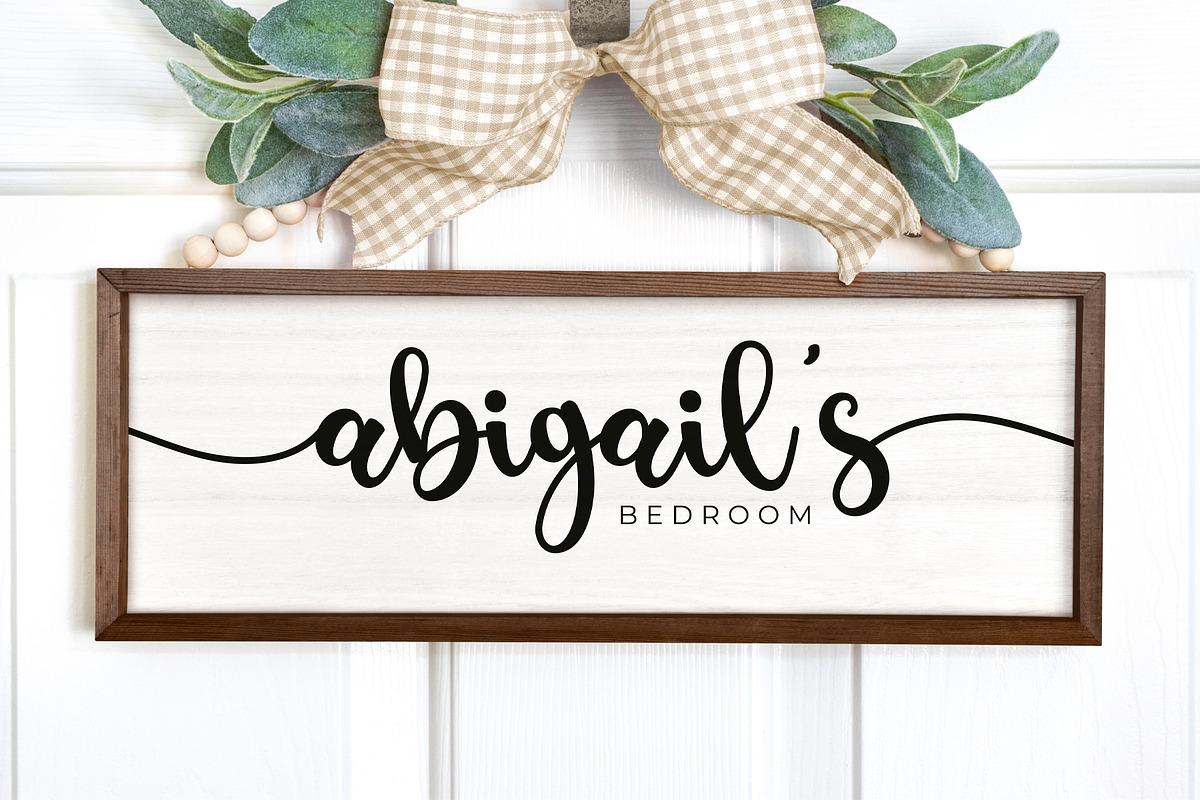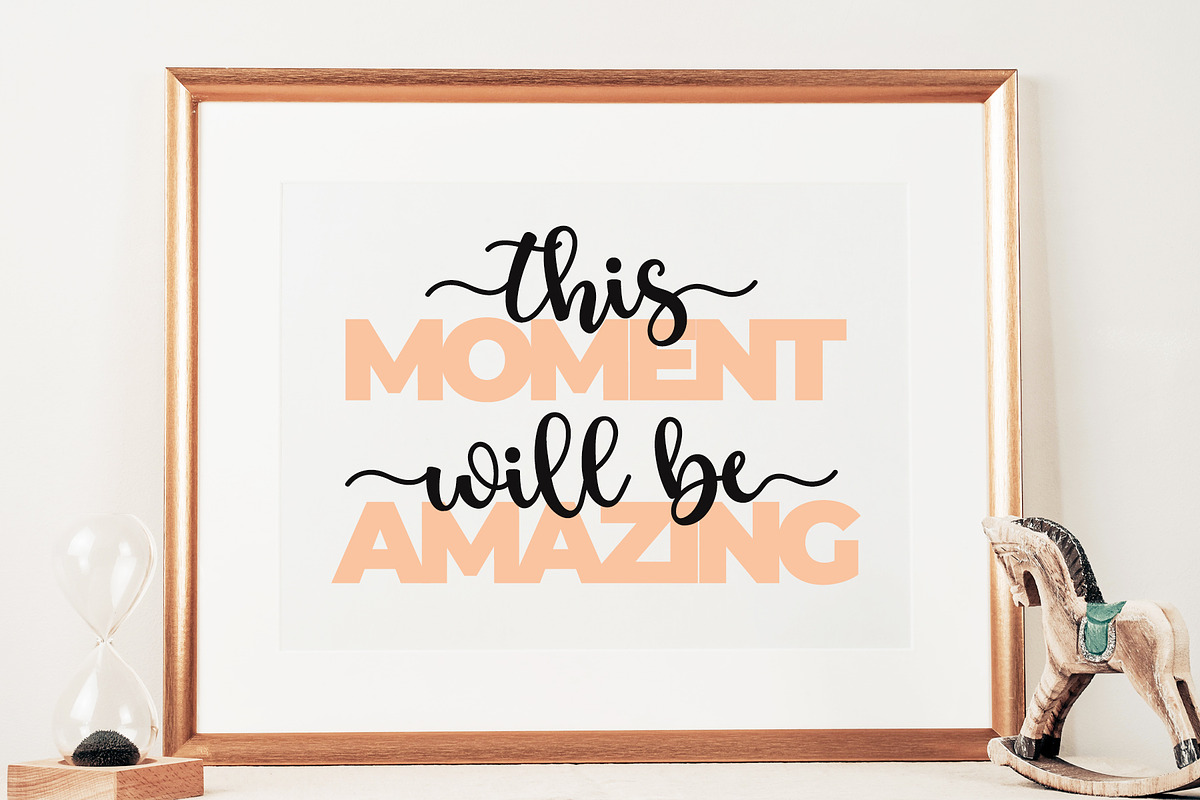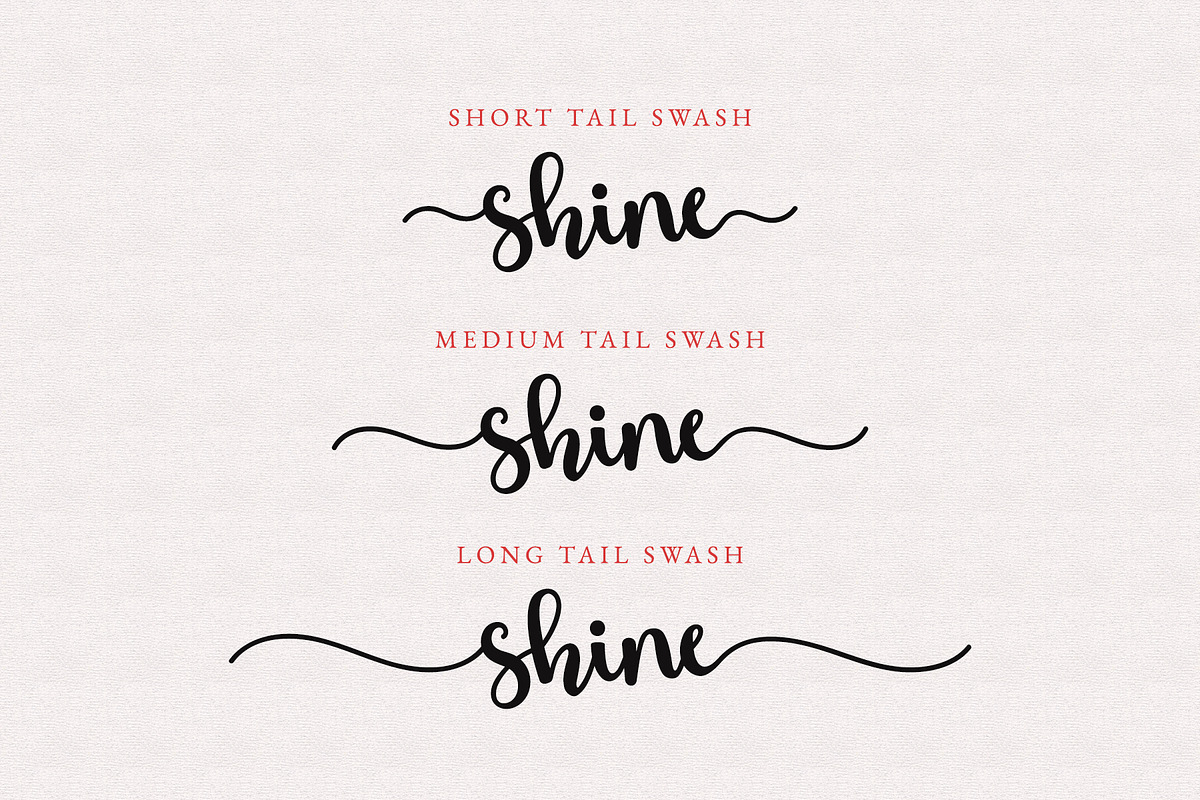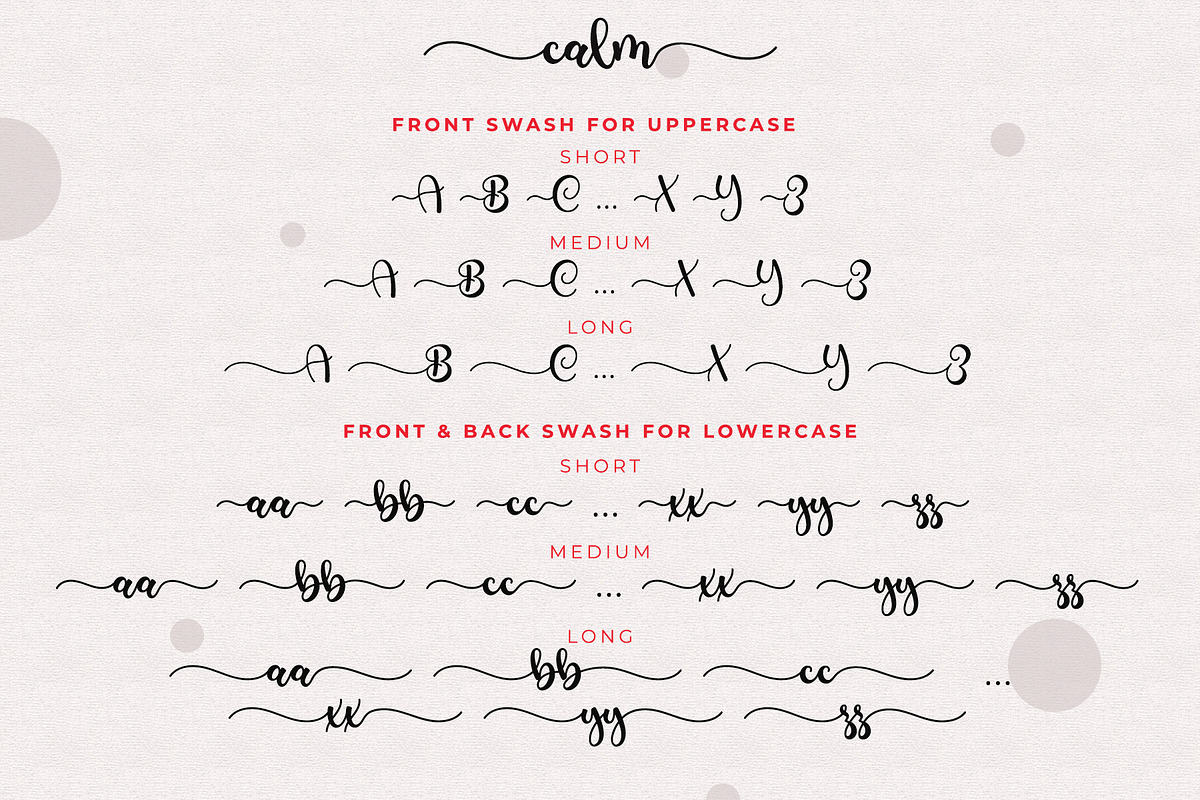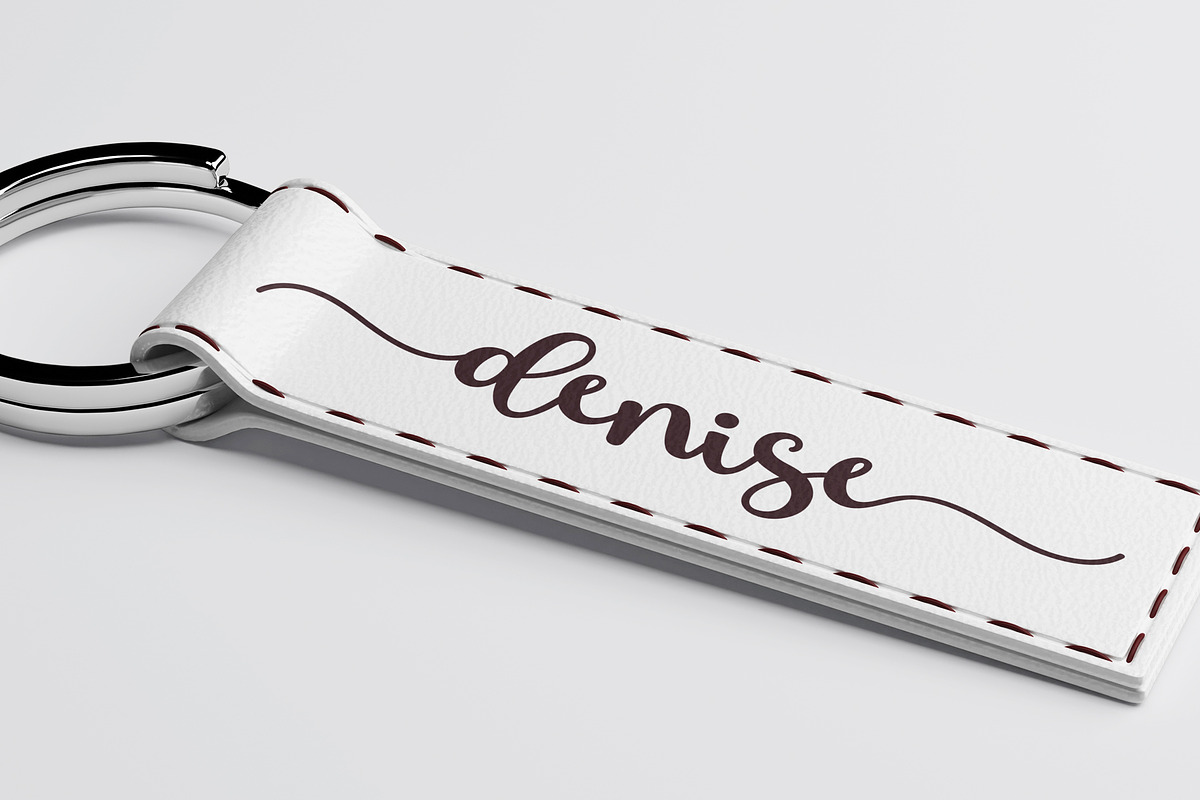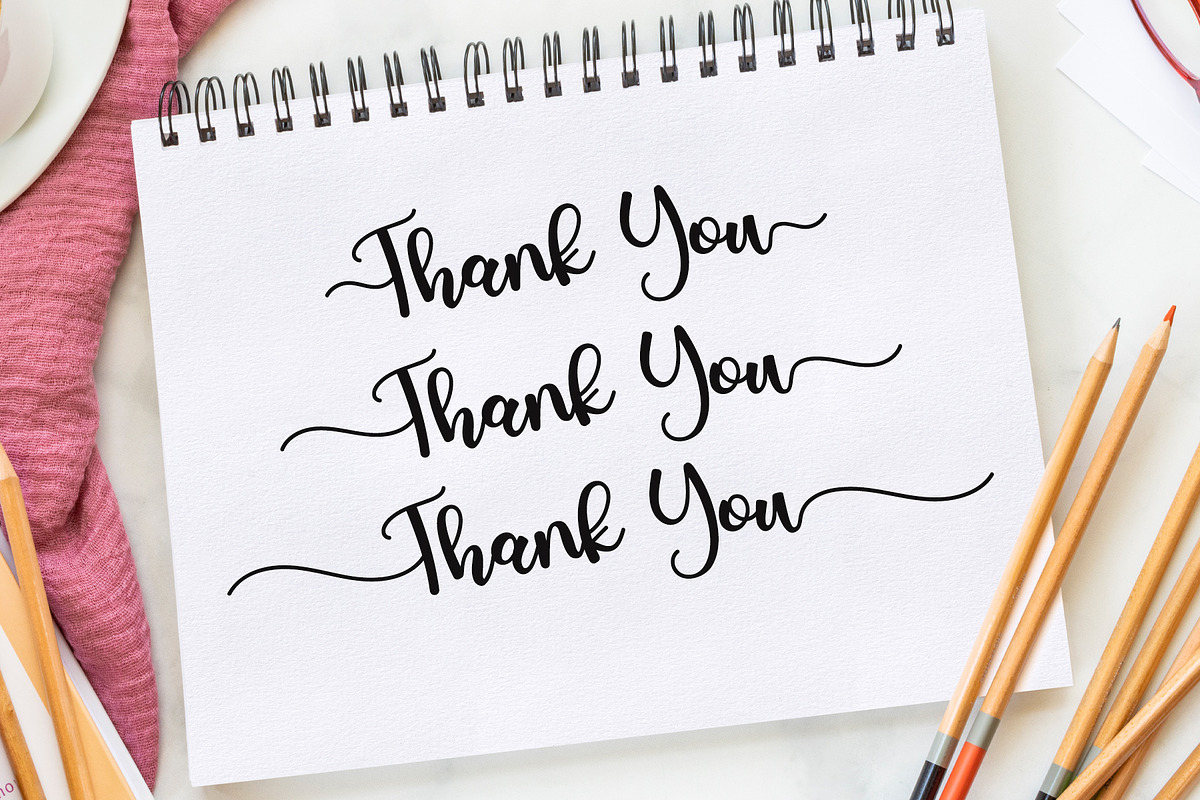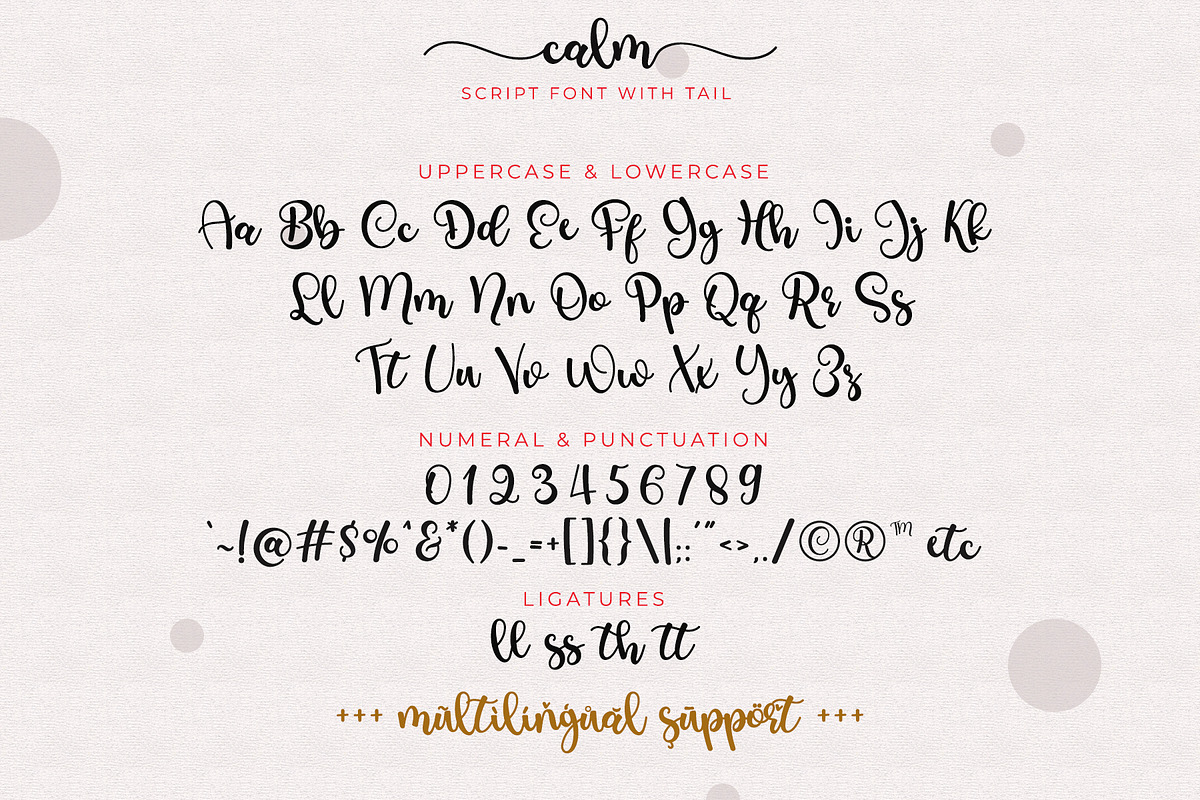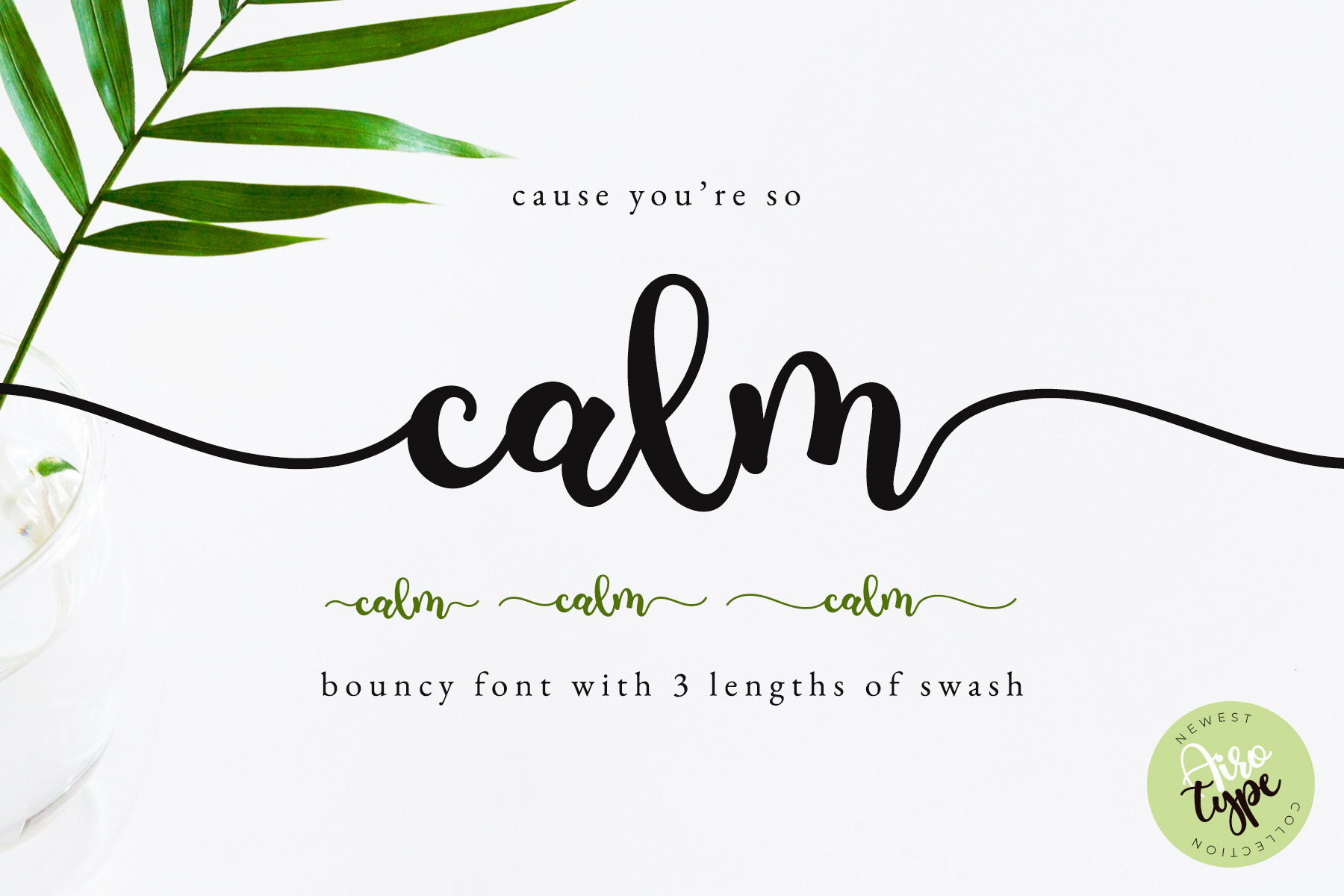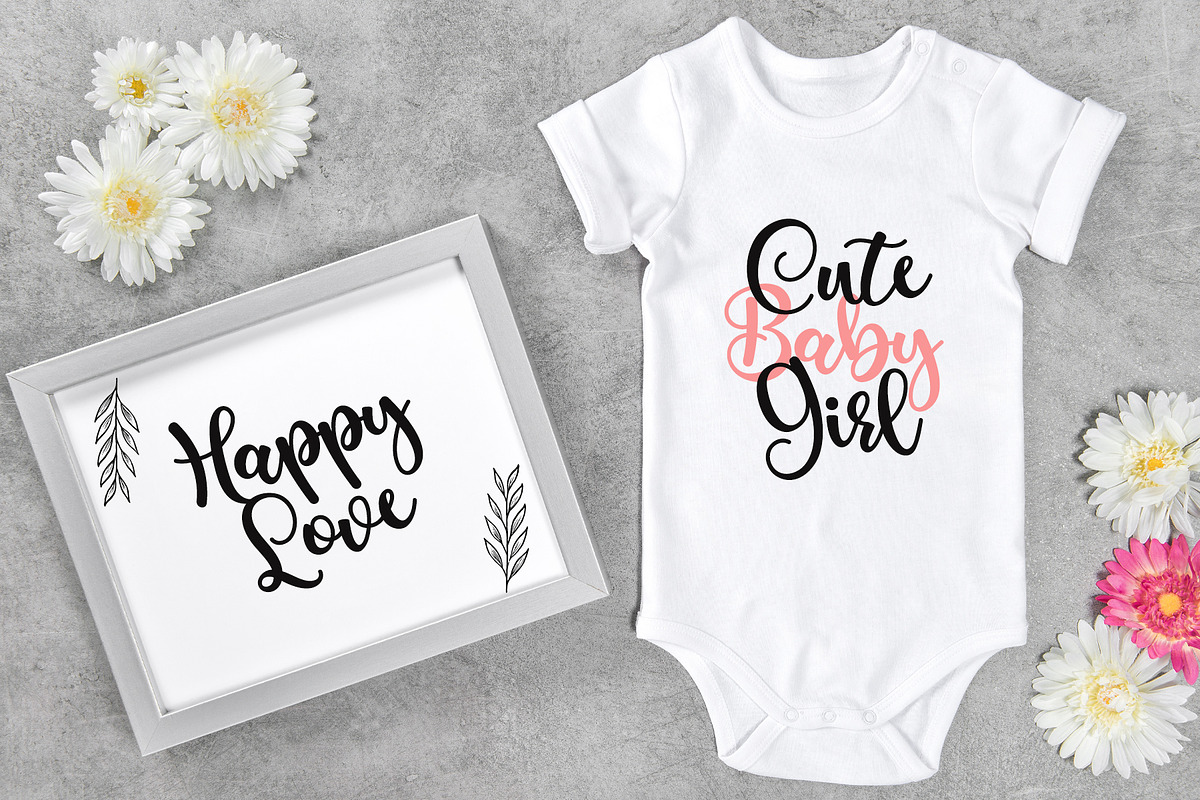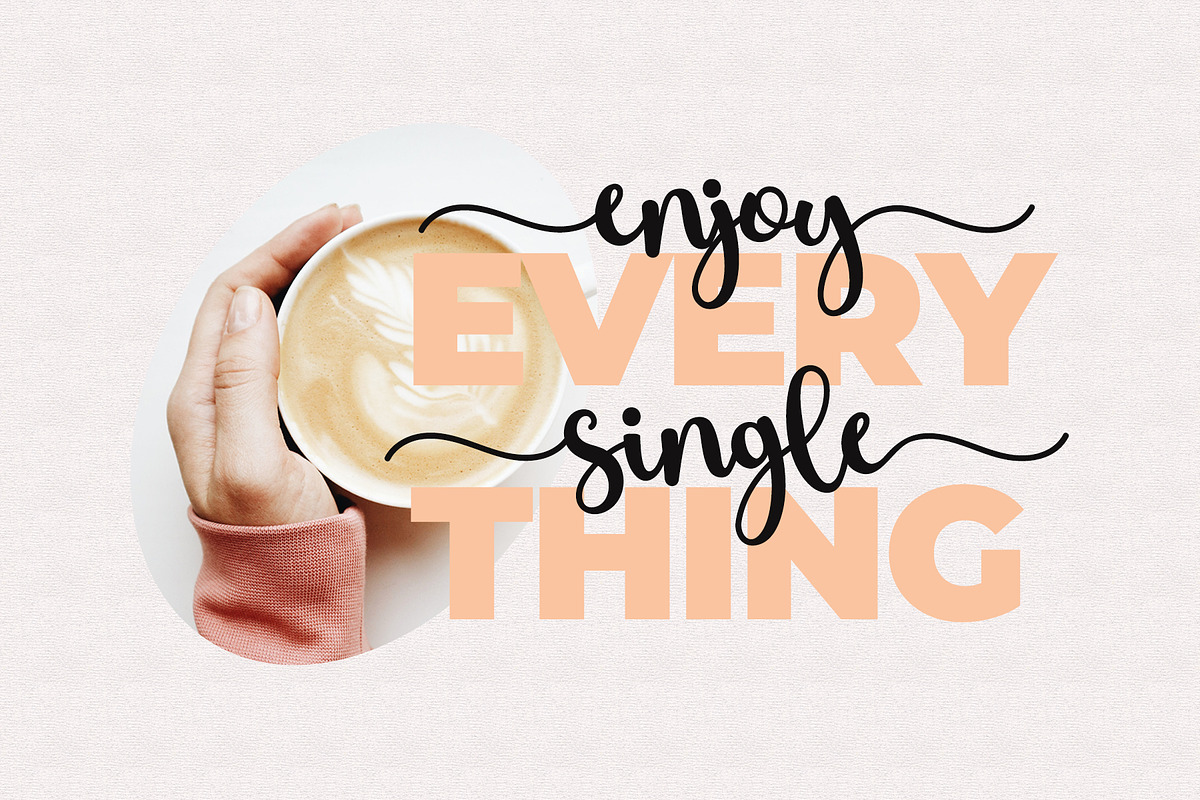
Calm Script - Long Tail Swash Font
Calm script is bouncy font which has fun and playful vibes. This font has 3 lengths of swashes. These are short swash, medium swash, and long swash.
Calm script is perfect font for any design projects, such as wedding invitation, birthday, t-shirt design, crafting, sticker, sublimation, and many more.
- Uppercase and Lowercase (include glyphs/character with tail swash)
- Most Multilingual Accent